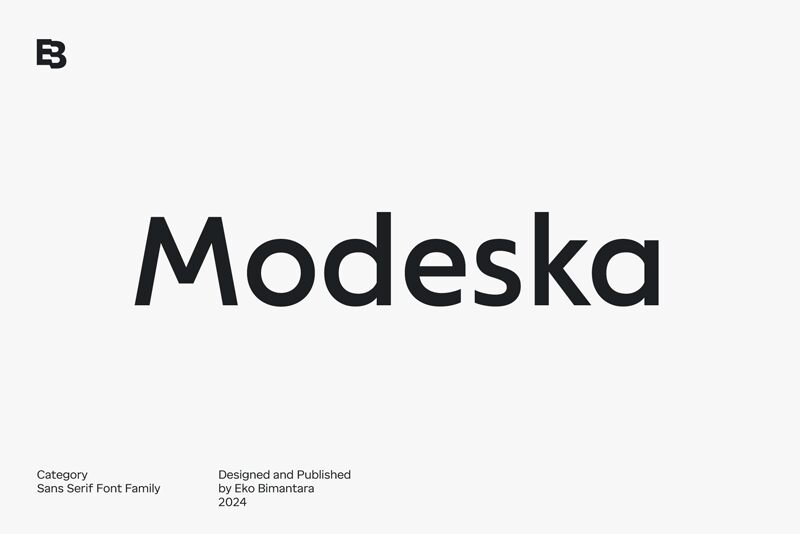
Modeska Trial Bold
Modeska Bold, a captivating sans-serif font designed by Eko Bimantara, exudes a harmonious blend of sophistication and modern flair. Its clean, geometric letterforms and well-balanced proportions create a striking visual statement, evoking a sense of confidence and clarity. The font's robust, yet refined presence lends itself to a wide range of applications, from corporate branding to editorial design.
Modeska Bold's versatility shines through its ability to adapt seamlessly across various mediums, from digital interfaces to print materials. Its strong character and legibility make it an excellent choice for headings, titles, and impactful textual elements. Whether crafting a sleek and professional business presentation or designing a contemporary editorial layout, Modeska Bold's versatility and distinctive style will elevate the overall aesthetic.